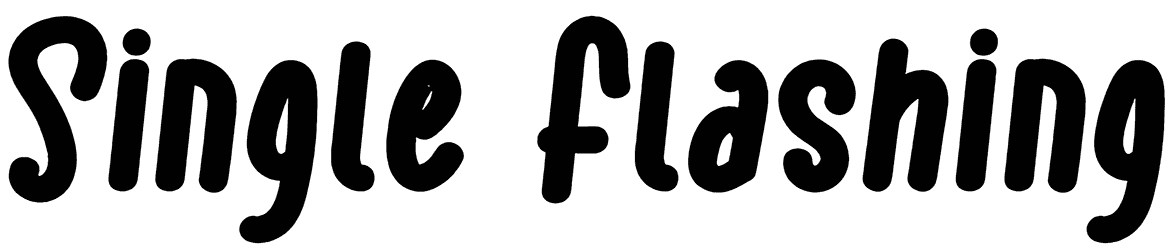
Single Flashing Font
You can always count on this soft, handwritten font to adorn your text and communicate well with your followers. The Single Flashing font’s letters are natural, and their cute and casual form will give a ravishing style to your words. Put this script font on your next projects, such as a flower shop façade, a café board, or the like, and be unique.